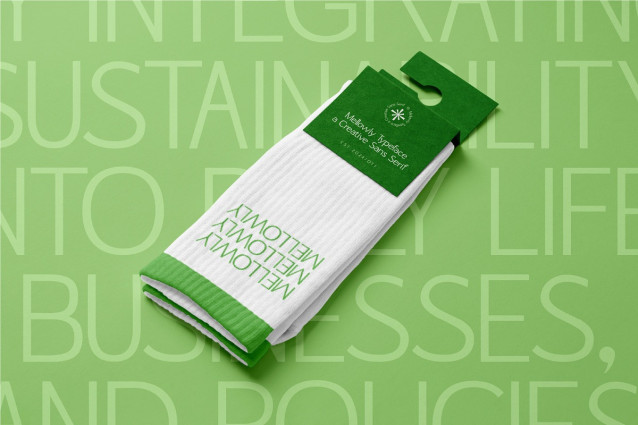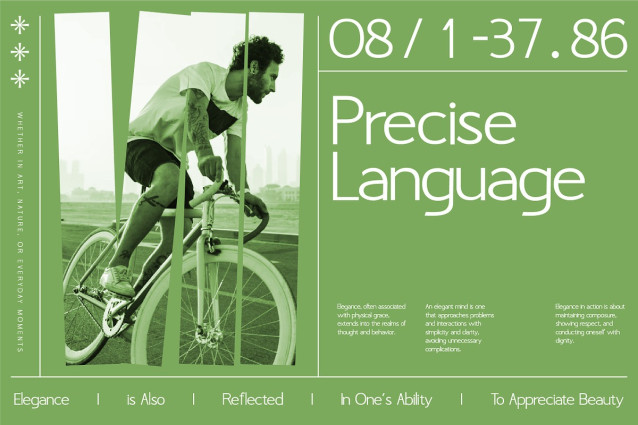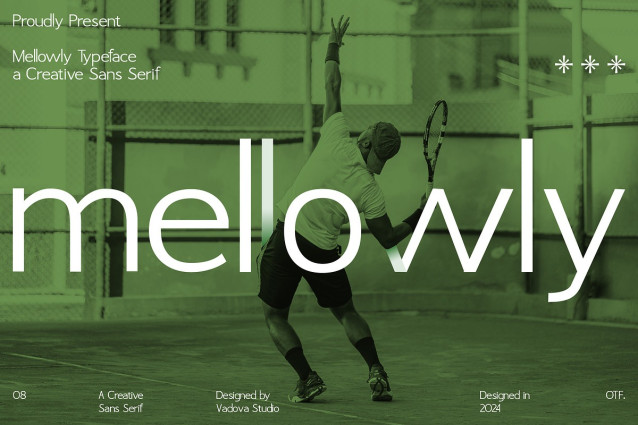
Mellowly Font
Mellowly Font is a clean, modern sans serif typeface designed for clarity, flexibility, and creative expression. With its geometric construction and soft minimalist aesthetic, Mellowly finds balance between functionality and visual sophistication. The font includes uppercase and lowercase letters, numbers, punctuation, and multilingual characters making it perfectly suited for digital platforms, print design, and branding.
Whether you’re designing a sports campaign, tech product, lifestyle magazine, or minimalist UI interface, Mellowly smooth rhythm and legible forms adapt effortlessly. It brings a quiet confidence to everything from logo design to editorial layouts and is optimized for both screen and print clarity. Mellowly is the ideal font for designers seeking smart simplicity and creative impact.